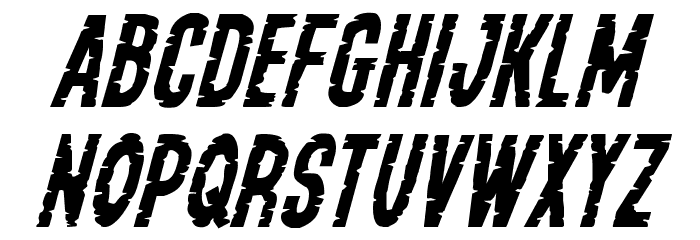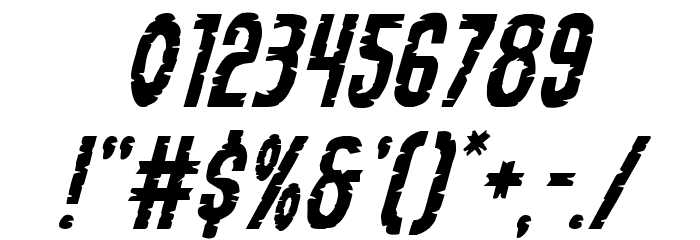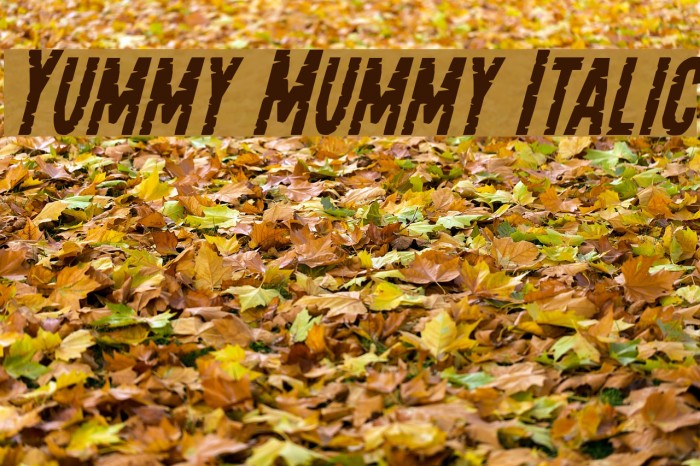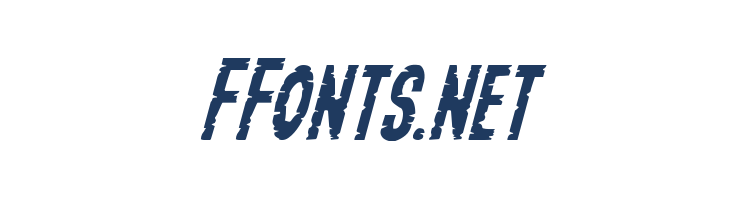
Yummy Mummy Italic Font
This font features a bold and dynamic style with a distinct italic slant, giving it a sense of motion and energy. The characters are designed with a rough, textured appearance, reminiscent of a distressed or grunge aesthetic. This adds a unique, edgy feel to the font, making it stand out in any design. The uppercase and lowercase letters maintain consistent styling, ensuring readability while still offering a creative flair. Numbers and special characters are included, matching the overall theme and providing versatility for various design needs.
A bold, italic font with a rough, textured style and dynamic energy.
- Proposed Projects: Ideal for posters, album covers, and edgy branding projects.